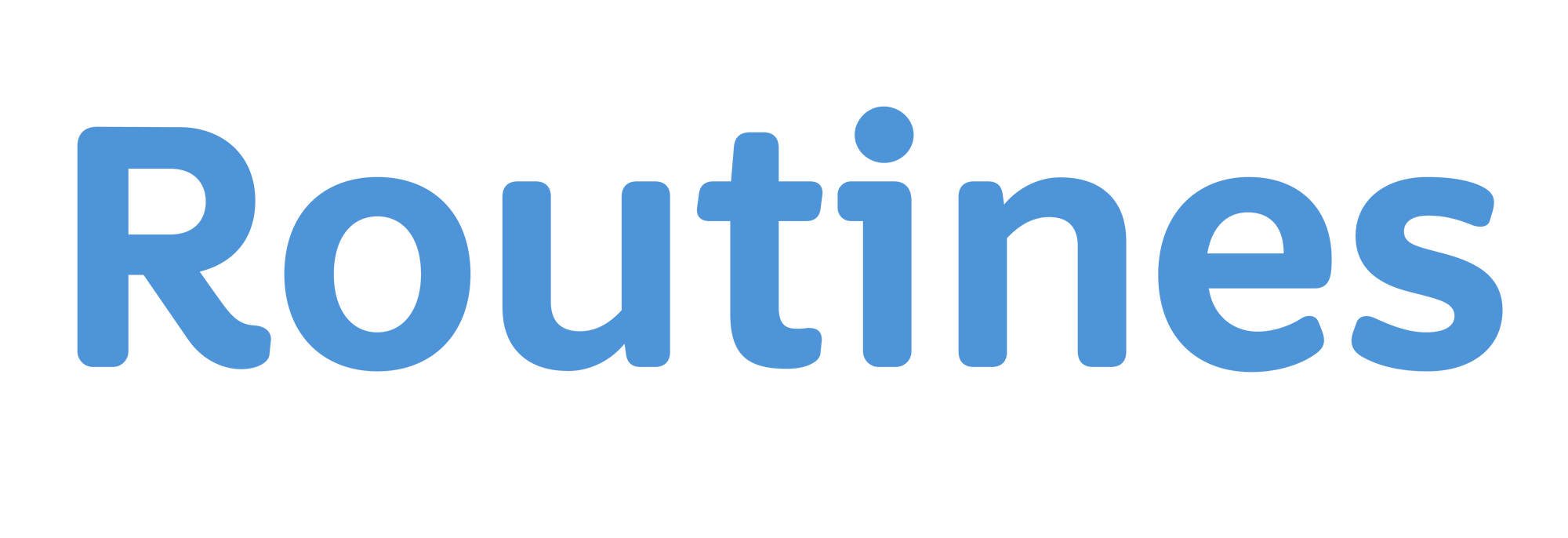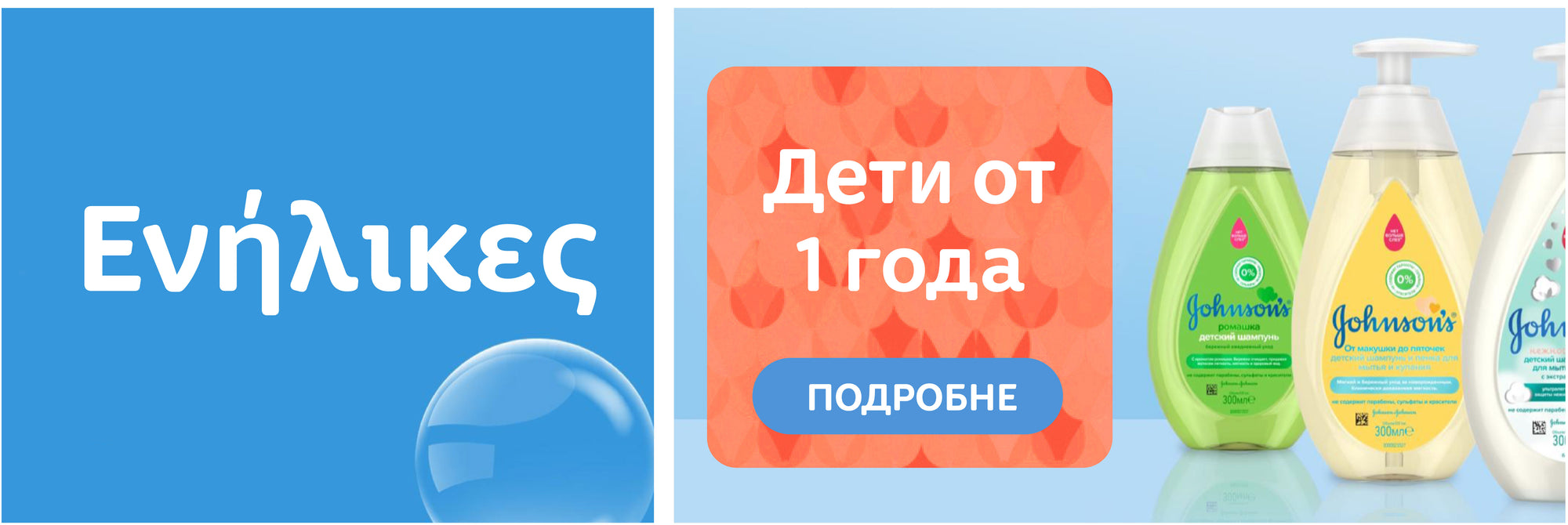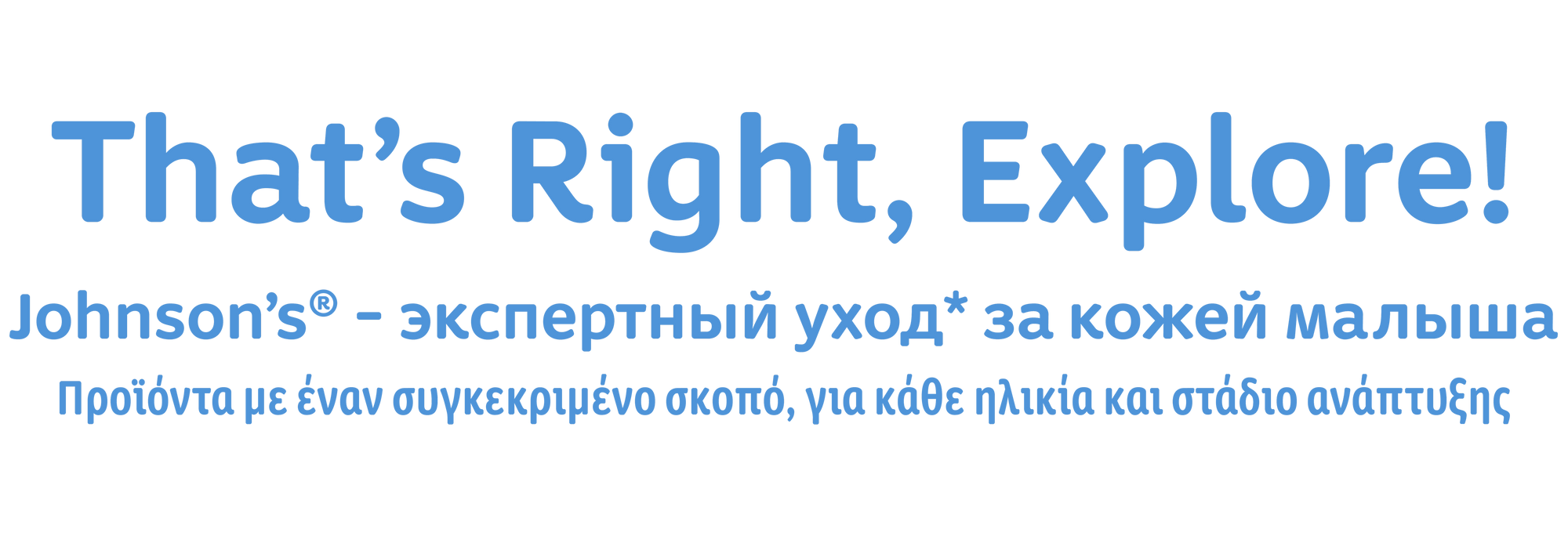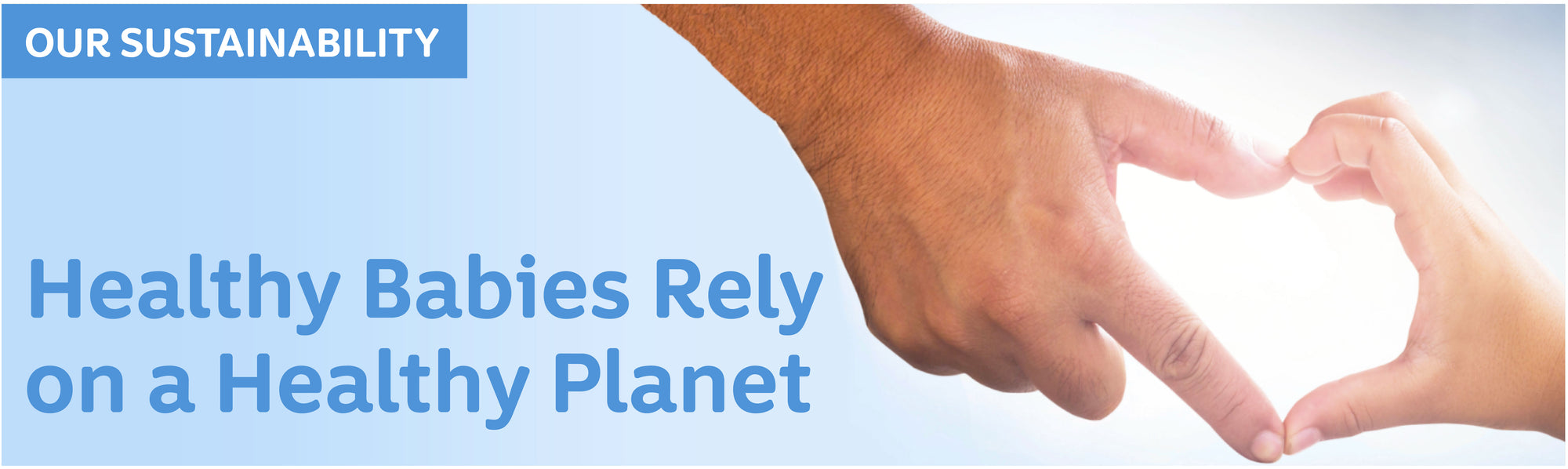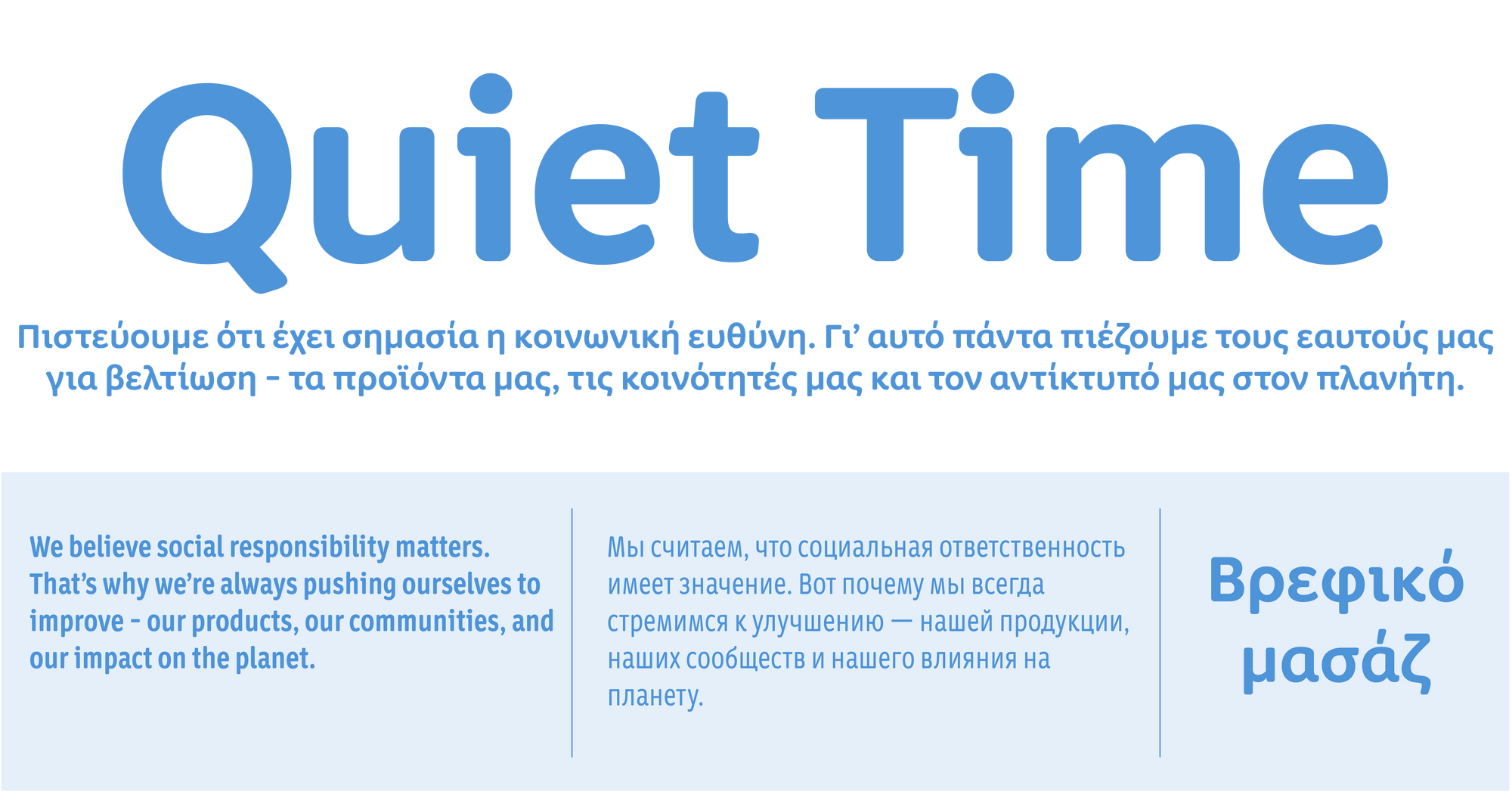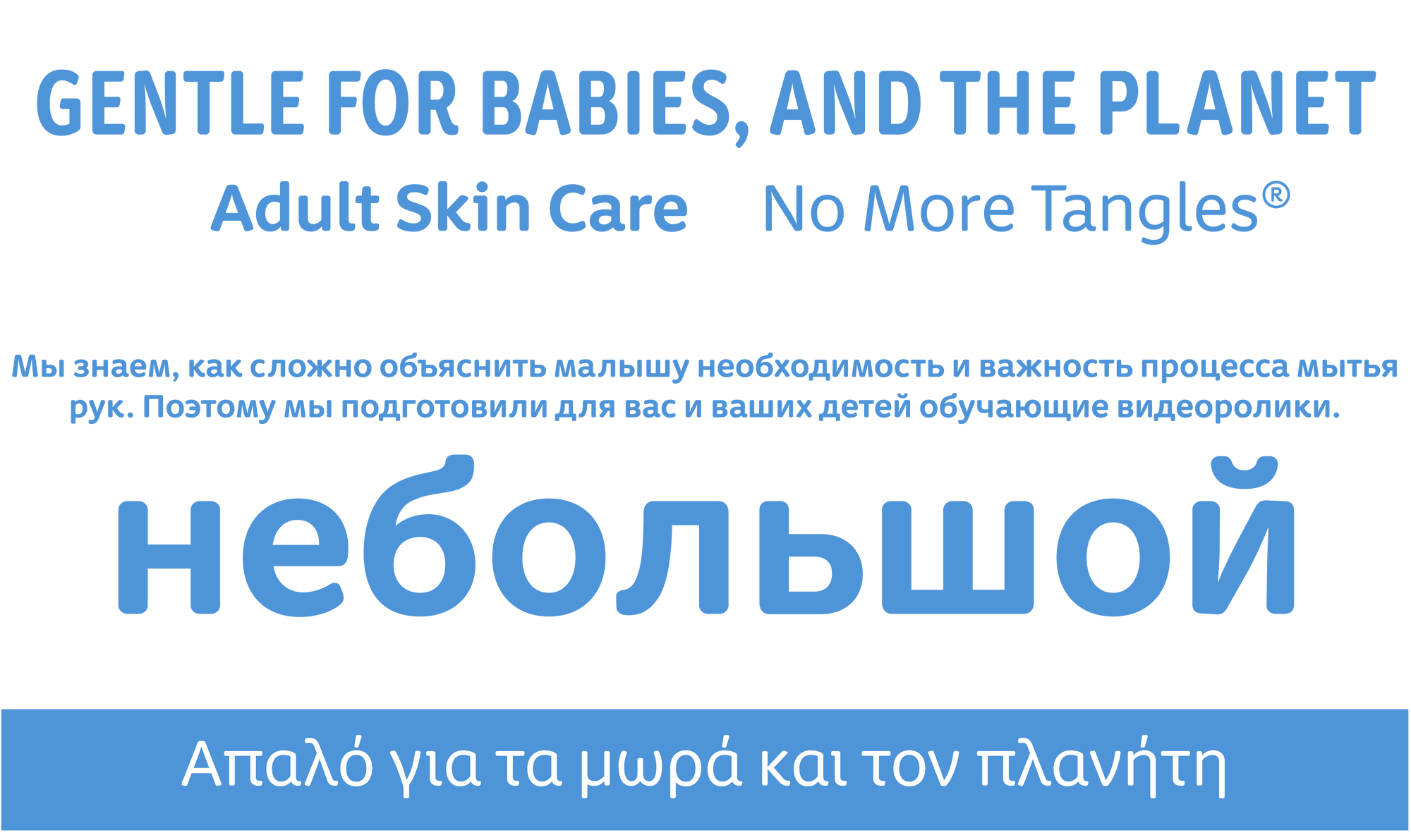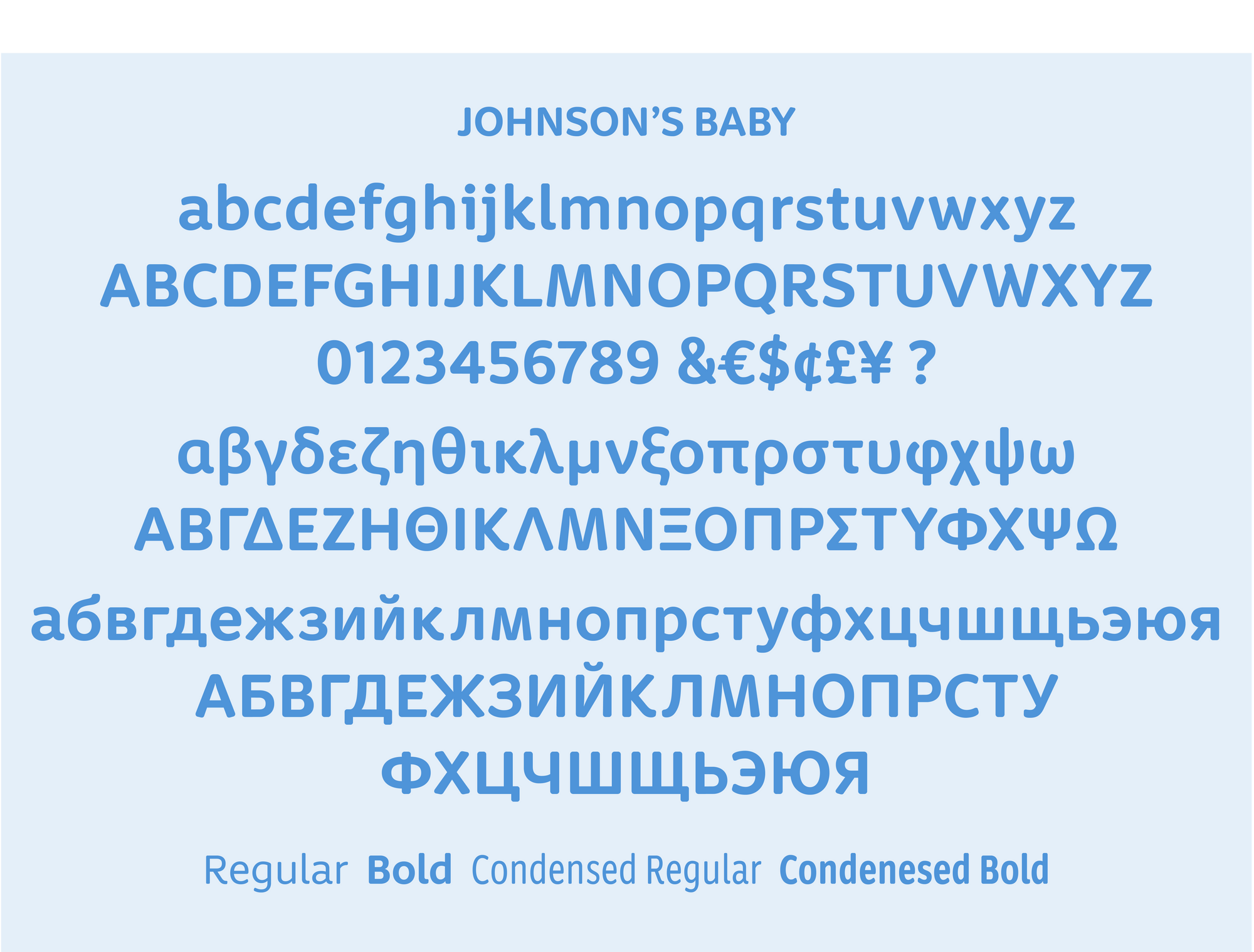
Johnson's Baby, Johnson & Johnson
Developed for the overarching Johnson’s Baby brand, the type family consists of two weights, two widths and broad language support for Cyrillic and Greek. Distinction matched with warmth and clarity set the tone of its application to be approachable and memorable.